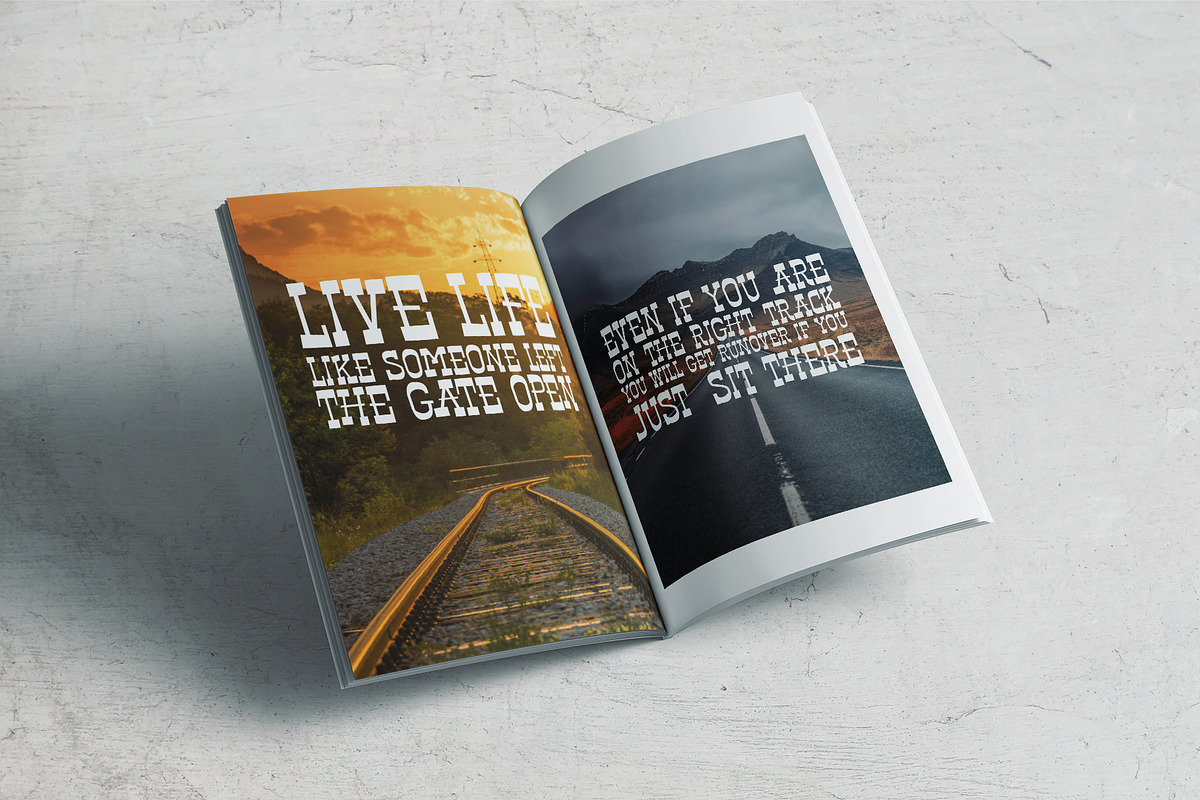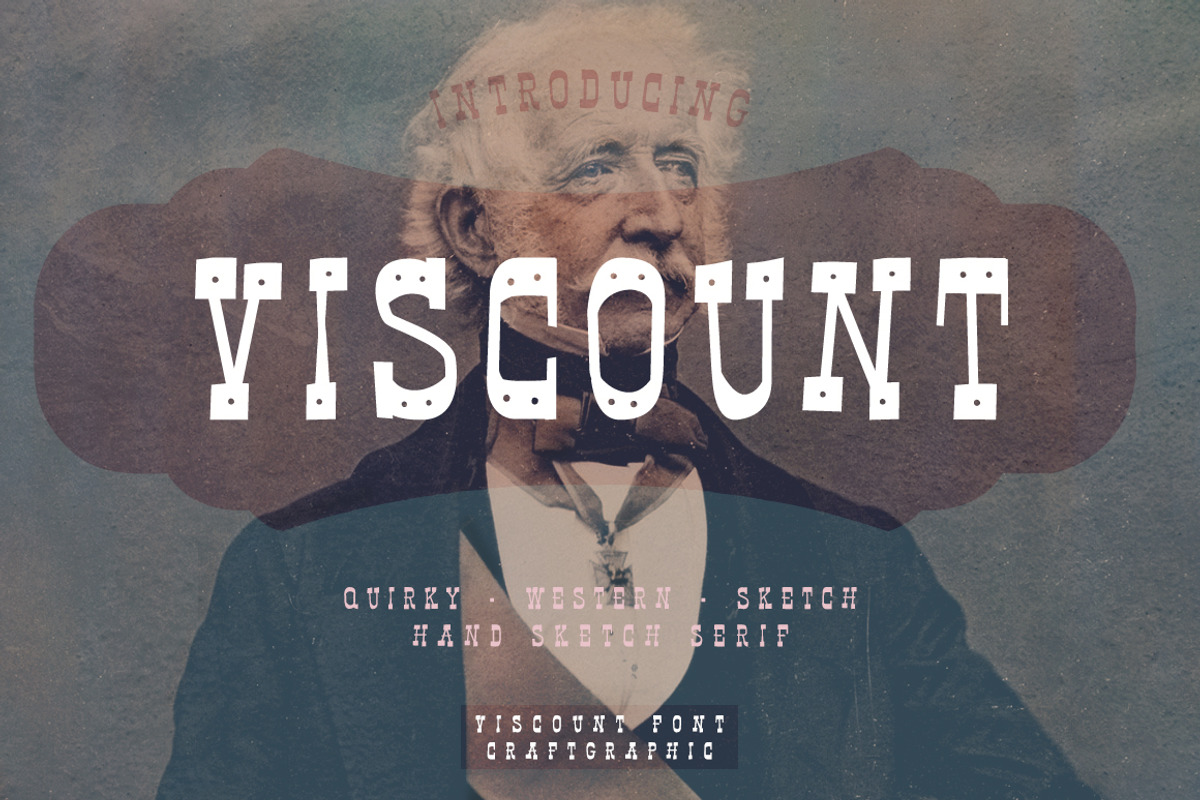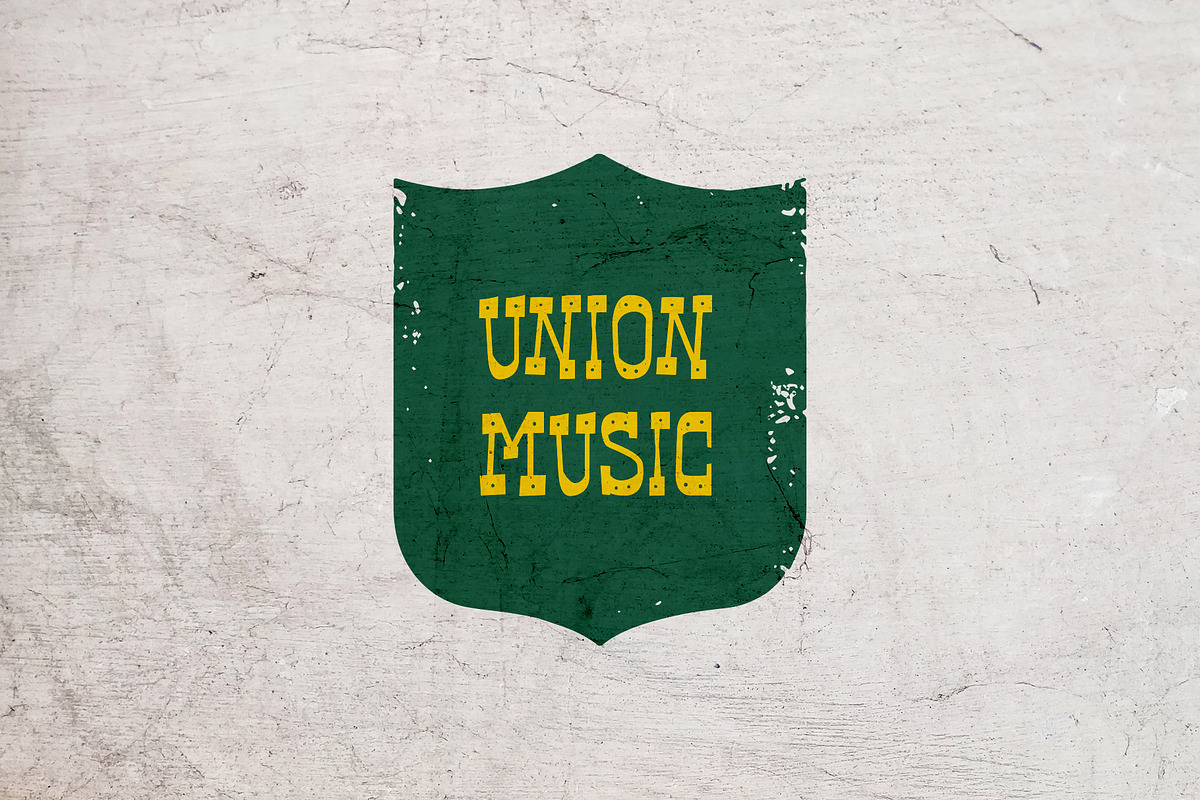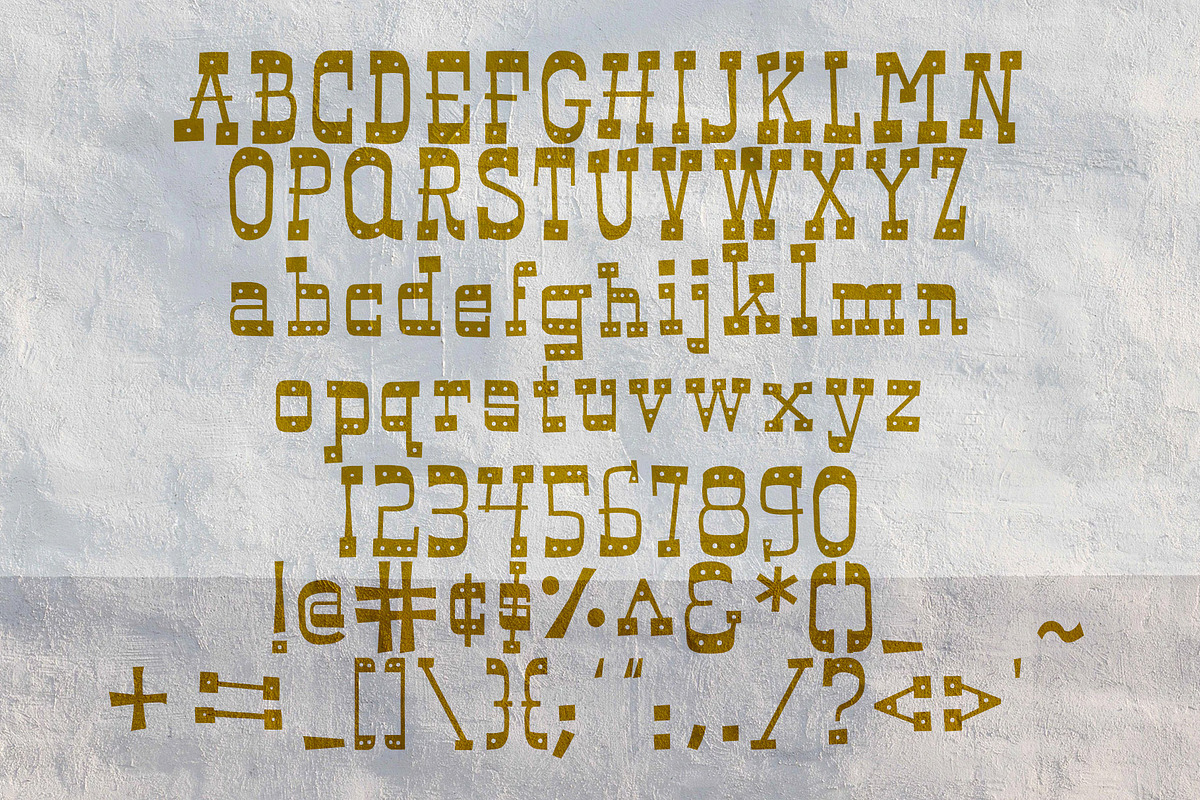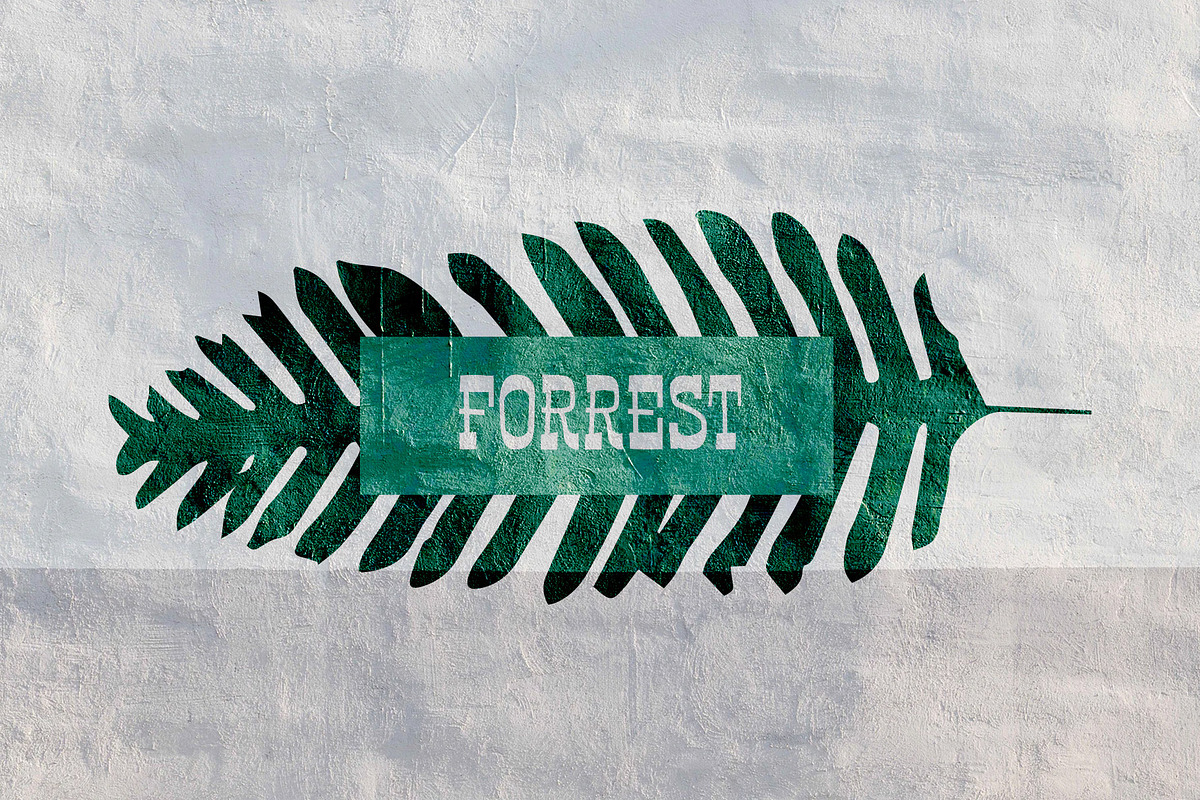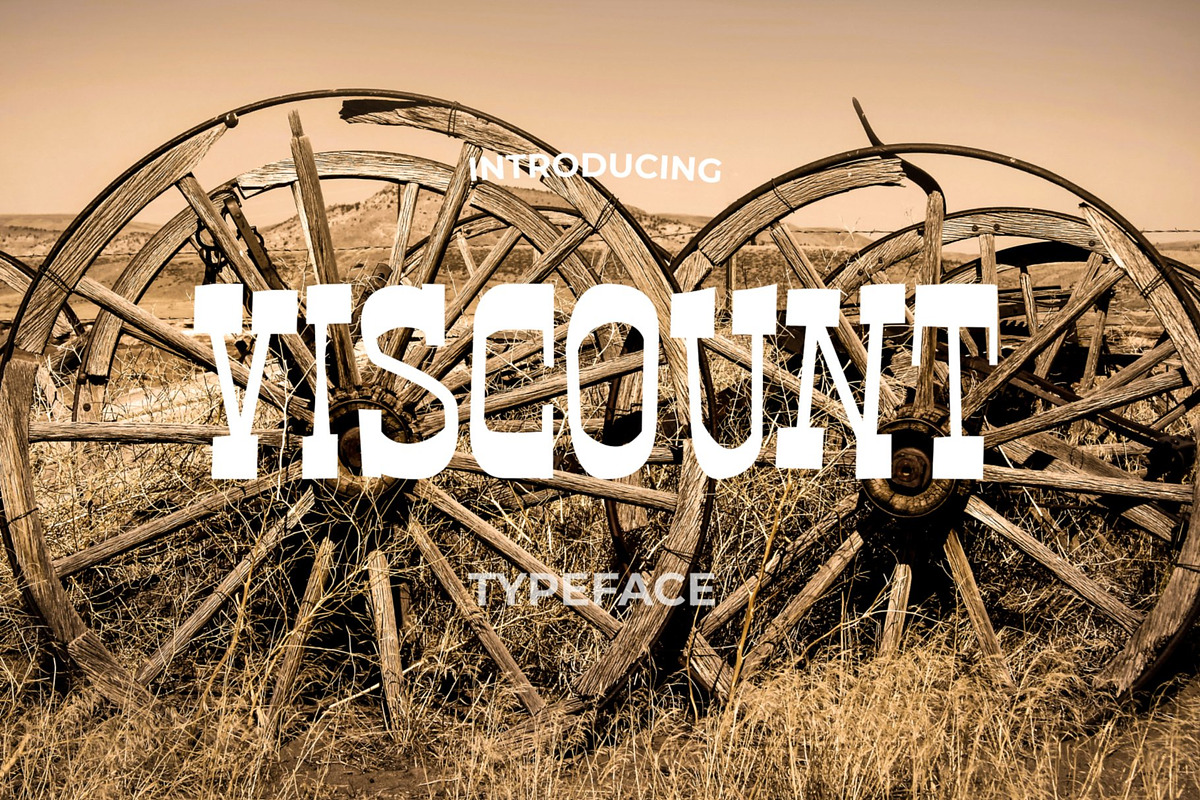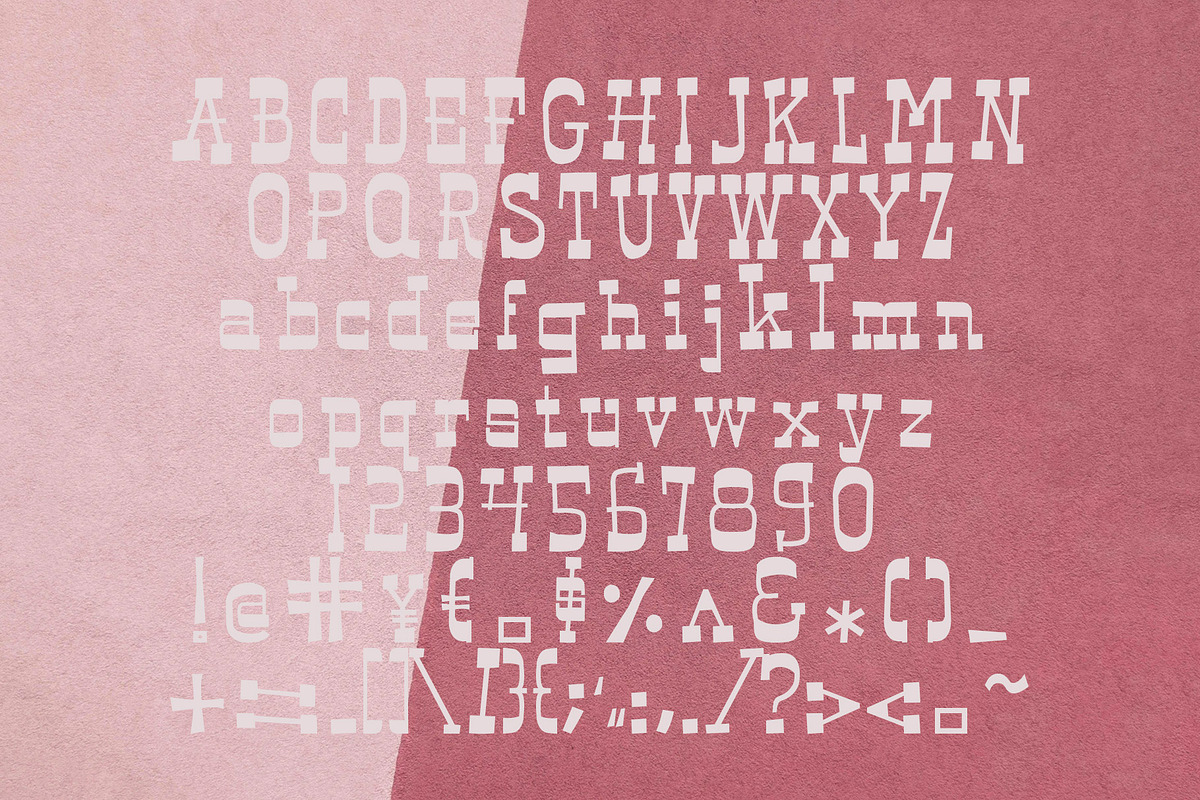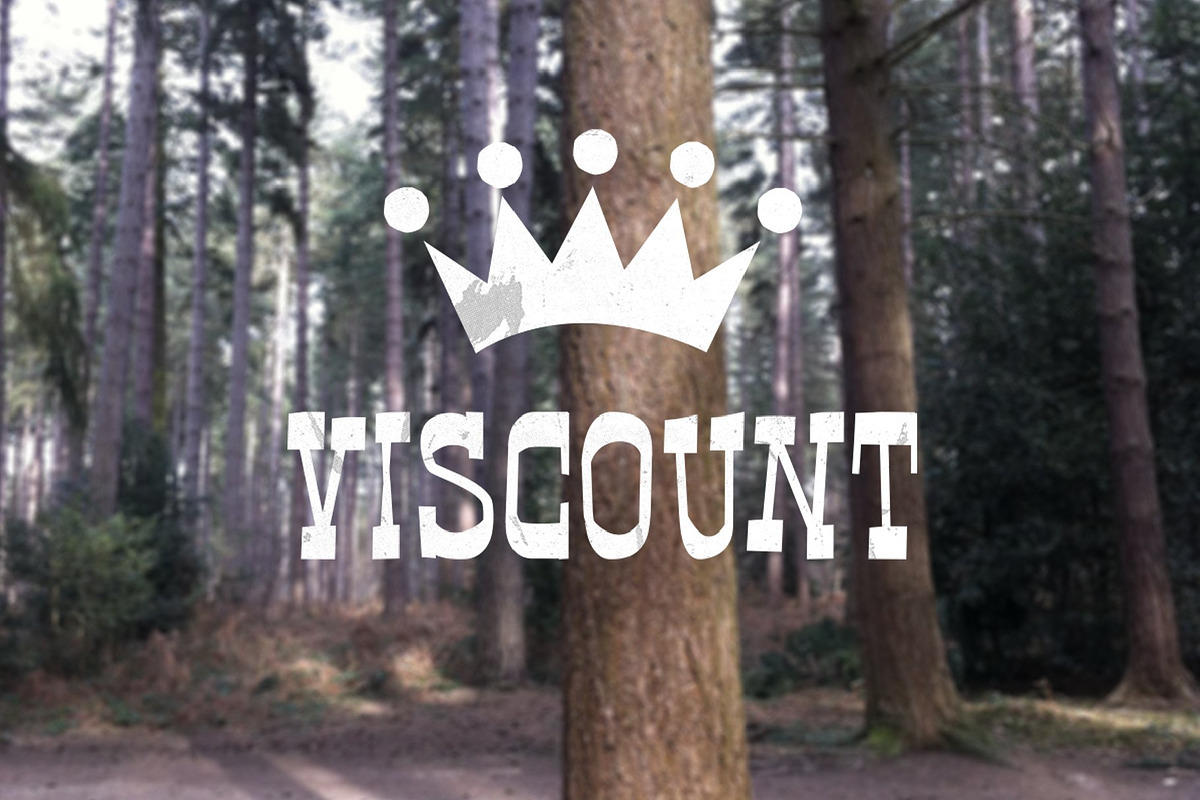
Viscount Western Font | Playful Type
Viscount Western Hand Font is a bold, playful typeface that brings a quirky western charm to any project. With its hand-drawn, rustic style, this font is perfect for adding character to posters, logos, packaging, and branding.
Designed with bold strokes and a free-spirited attitude, Viscount effortlessly captures a vintage, western aesthetic with a fun twist. Whether you're designing for an event, a themed brand, or a casual project, this font adds instant personality and flair.
- Uppercase and lowercase letters
- Western hand-drawn style
Bring a lively, western vibe to your next project with Viscount and make your designs stand out with a unique, handcrafted touch.